Great graphic design is powered by great font selection. But picking great fonts is a challenge most people. Luckily, Canva has made adding great fonts to your designs much easier. In this tutorial, our team of design experts will cover the best stamp fonts in Canva.
What Are Stamp Fonts?
Stamp fonts, also known as grunge fonts, typically share the following characteristics:
- Distressed appearance: Stamp fonts are designed to look distressed or weathered, with an appearance that suggests they were created using a stamp or other printing method that has been worn or damaged over time.
- Irregular lines and edges: Stamp fonts often have irregular lines and edges, with rough or jagged letterforms that suggest a sense of age and wear.
- Limited color palette: Stamp fonts are typically used in a limited color palette, with black or dark-colored text on a light-colored background.
- Bold and impactful: Stamp fonts are often bold and impactful, with strong letterforms that create a sense of power and strength.
- Grungy textures: Stamp fonts often incorporate grungy textures, with distressed or faded areas that create a sense of vintage or retro style.
- Serif or sans-serif: Stamp fonts can be either serif or sans-serif, depending on the designer’s preference and the intended use.
- Limited use: Stamp fonts are not typically used for body copy or large blocks of text, but rather for headings, titles, and other short bursts of text where their impact can be fully appreciated. They are commonly used in branding, advertising, and other forms of visual communication that require a bold and grungy style.
Best Canva Stamp Fonts
1. Edmund Texture
Edmund Texture is a distinctive and artistic display font with a textured, hand-drawn appearance. Its rough, grungy letterforms give it a unique and rustic charm, making it perfect for projects that require an authentic, vintage touch, such as logos, posters, or packaging for artisanal products.
2. Rogue
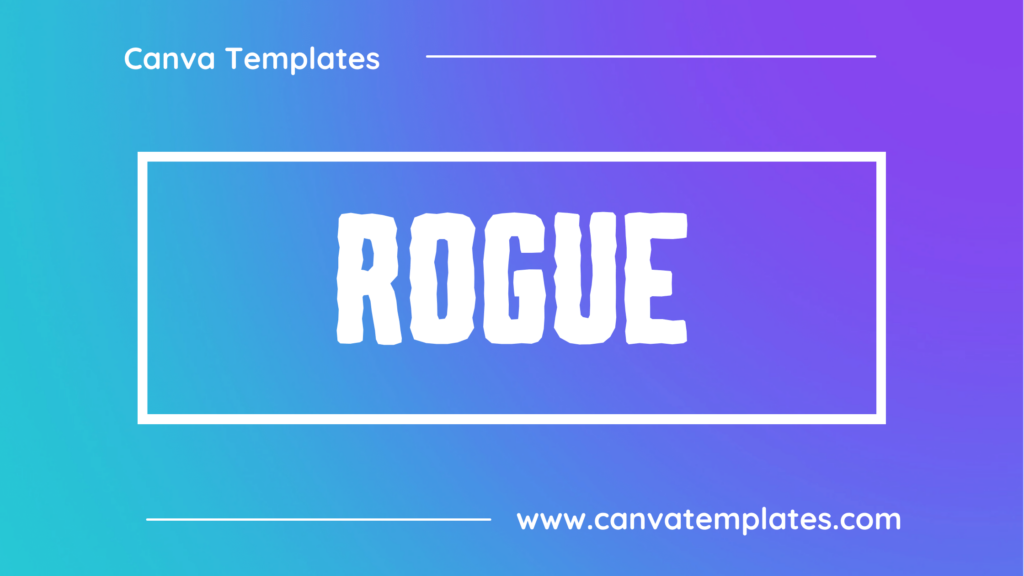
Rogue is a bold and expressive display font with a hand-drawn, brushstroke appearance. Its dynamic and energetic design makes it ideal for projects that require a strong visual impact, such as logos, posters, or album covers, particularly in settings that call for a rebellious or adventurous tone.
3. Rundeck Texture
Rundeck Texture is a distinctive and eye-catching display font with a textured, weathered appearance. Its rough, worn-out letterforms give it a unique and rustic charm, making it perfect for projects that require a vintage or industrial touch, such as logos, posters, or packaging for handcrafted products.
4. 29LT Makina
29LT Makina is a distinctive, mechanical-inspired display font that features a combination of industrial and geometric design elements. Its unique and bold appearance makes it an excellent choice for headlines, posters, or branding projects that require a strong visual impact.
5. Lava Pro Grunge
Lava Pro Grunge is a distressed, grungy font with rough edges and a lava-like texture, giving it a gritty and edgy feel.
6. Road Race Stamp
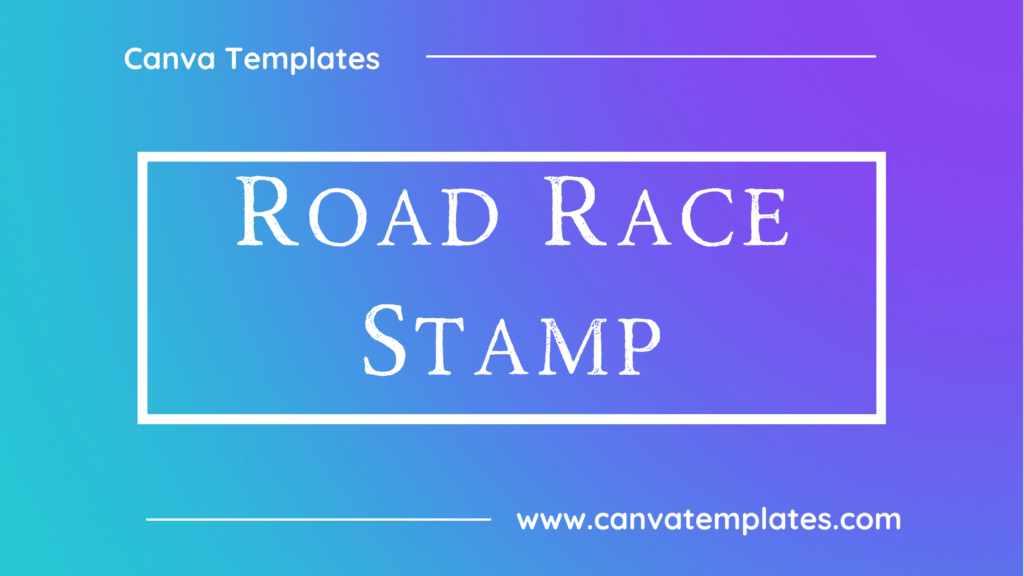
Road Race Stamped is a bold and dynamic display font with a stamped, distressed appearance. Its rugged, textured design evokes a sense of speed and adventure, making it perfect for projects that require an edgy or industrial touch, such as logos, posters, or packaging for automotive or sports-themed products.
7. La Lou
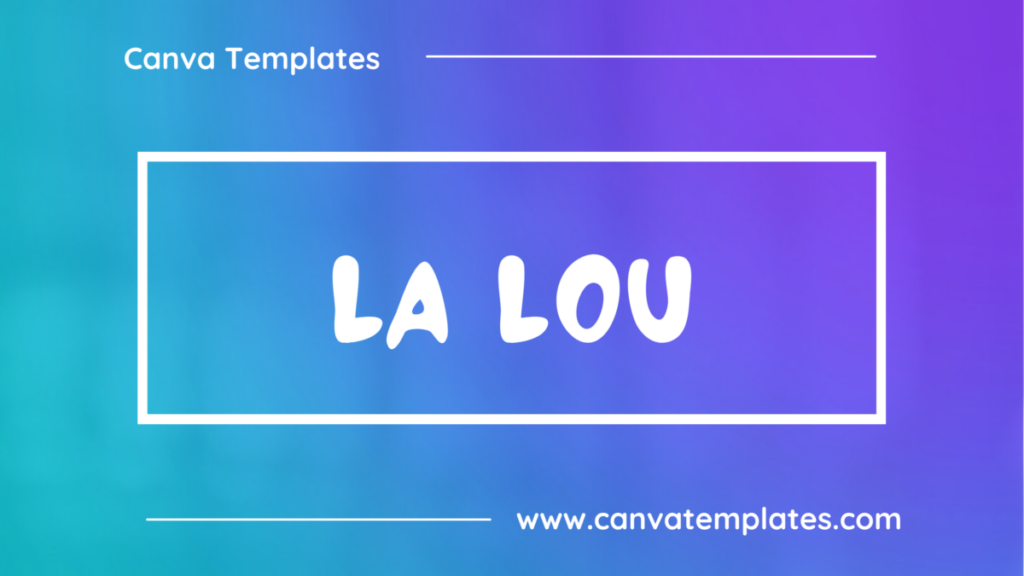
La Lou is a charming and elegant script font with a vintage-inspired design. Its graceful letterforms and decorative flourishes make it perfect for projects that require a touch of sophistication, such as wedding invitations, branding, or packaging.
8. Allepo
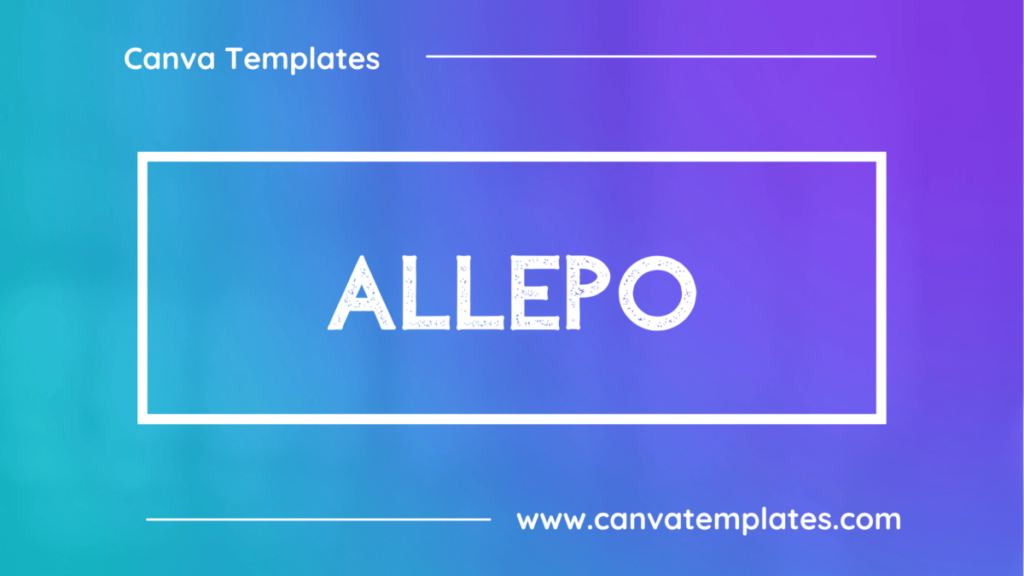
Allepo is a sans-serif font with a geometric and futuristic design, characterized by sharp angles and clean lines. Its modern appearance makes it a great choice for tech-related projects, such as apps or websites.
9. Kent Printed
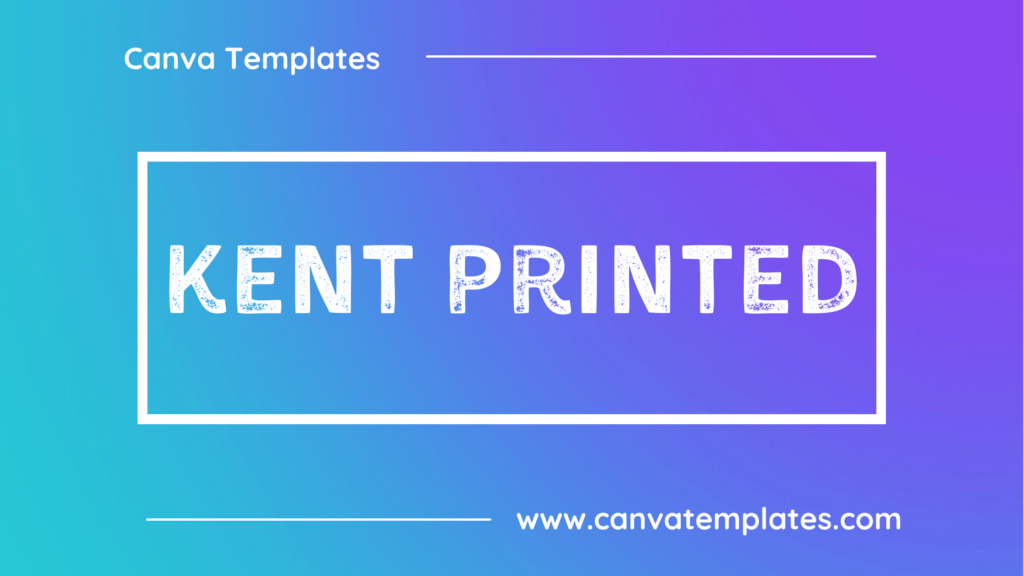
Kent Printed is a serif font with a hand-printed look, featuring irregular lines and a vintage feel. Its warm and personal appearance makes it ideal for designs that require a human touch, such as invitations or packaging.
10. Comodo Stamp
Comodo Stamp is a display font with a textured and distressed look, inspired by rubber stamps and ink. Its handmade appearance makes it a great choice for designs that require a rustic or vintage feel, such as packaging or labels.
Conclusion